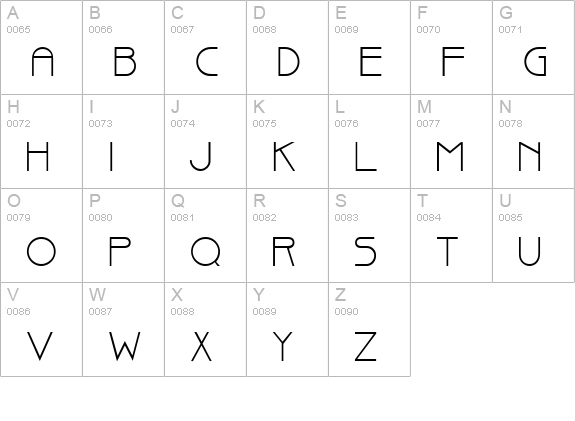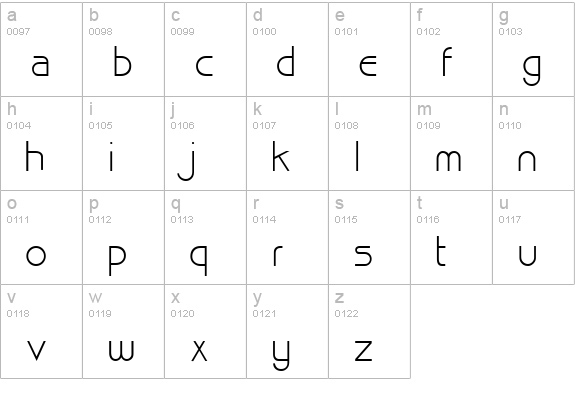
Basque Normal is the standard, neutral variant in the Basque typeface family \xE2\x80\x94 well suited to general body text, paragraphs, and standard typographic work.
Basque Normal font is a modern and versatile typeface that exudes elegance and sophistication. With its clean lines and balanced proportions, this font is perfect for a wide range of design projects, from branding to editorial content. The Basque Normal font features a subtle uniqueness that sets it apart from other fonts, making it a great choice for designers looking to make a statement. The best part? Basque Normal font is available for free download at FontsMarket.com, making it accessible to everyone looking to add a touch of style to their projects. Whether you're designing a website, creating a logo, or working on a print publication, Basque Normal font will elevate your design and leave a lasting impression on your audience. Download this stunning font today and unleash your creativity with Basque Normal.